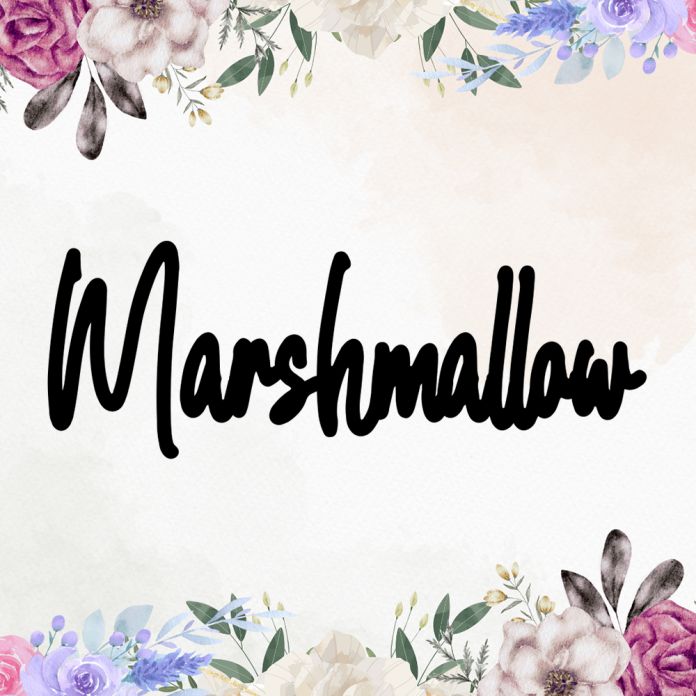
Marshmallow is a delicate and elegant handwritten font. Its distinct and well balanced letters make this font a masterpiece. Fall in love with its incredibly versatile style and use it to create spectacular designs!